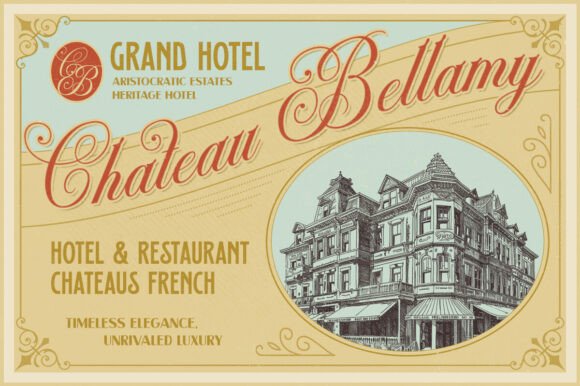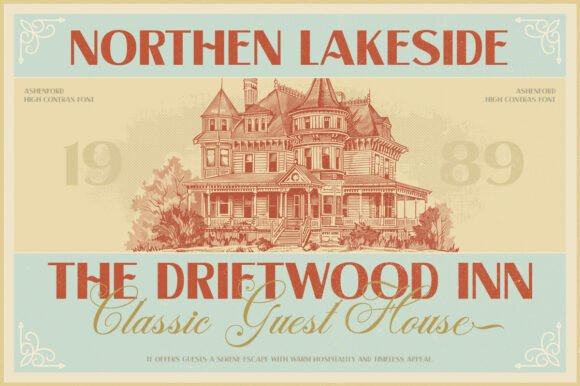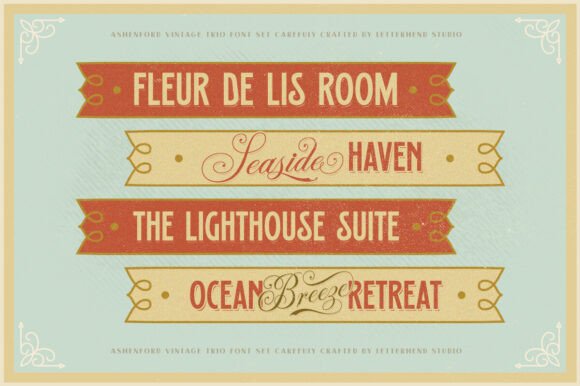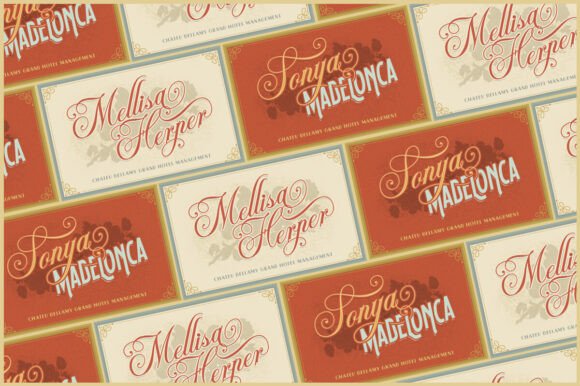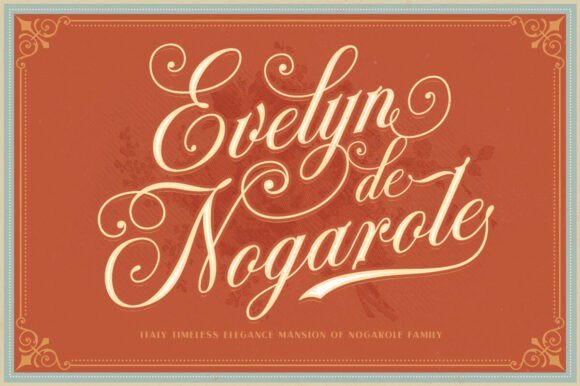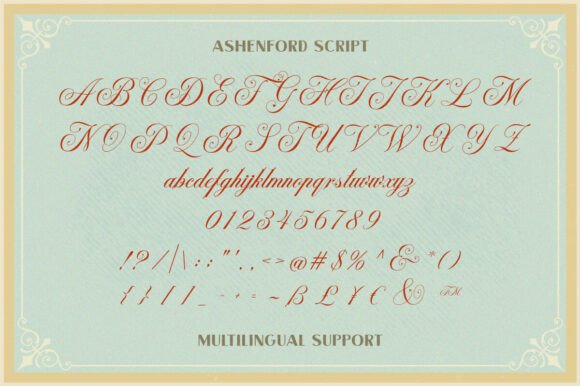
Introduction to Ashenford Vintage Trio Font
Step into timeless elegance with Ashenford, a meticulously crafted font trio that blends classic sophistication with vintage charm.
Inspired by old-world signage, elegant calligraphy, and refined typography, this collection features a stylish script, a condensed sans-serif, and a high-contrast sans-serifโperfect for branding, logos, packaging, posters, and editorial designs .
Key Features of Ashenford Vintage Trio Font